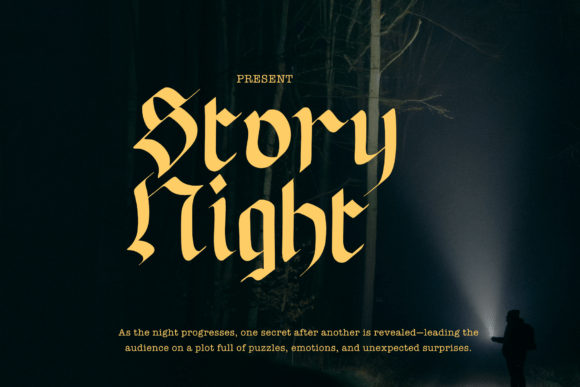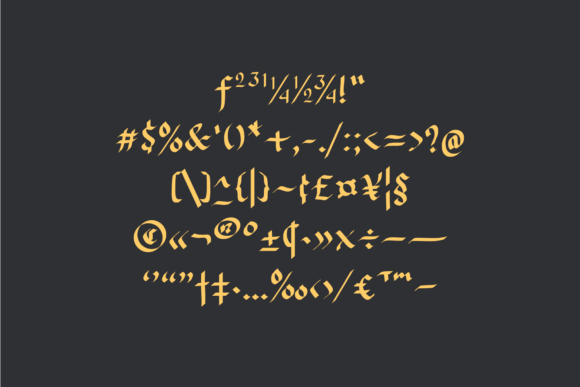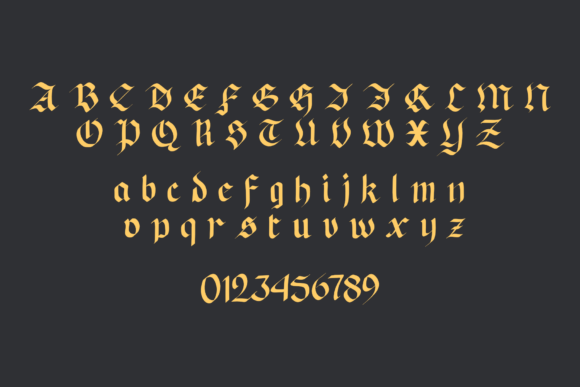
Unveiling the Elegance of Black Sultanah Font: A Timeless Choice for Designers and Crafters
The Black Sultanah font, a category of typefaces also known as Gothic or Old English fonts, has been a cornerstone of design for centuries. Characterized by their dramatic, ornate letterforms with thick, angular strokes and elaborate decorative elements, these fonts evoke a sense of history, authority, and sophistication. Originating in medieval European manuscripts, Black Sultanah fonts have stood the test of time, remaining a popular choice for designers and crafters seeking to add a touch of classical elegance or dramatic impact to their projects.
The Origins and Evolution of Black Sultanah Fonts
Black Sultanah fonts trace their roots back to the medieval period in Europe, where they were used in illuminated manuscripts and Gothic architecture. These early typefaces were designed to convey a sense of grandeur and solemnity, reflecting the artistic and cultural values of the time. Over the centuries, Black Sultanah fonts have evolved, influenced by various design movements and technological advancements. Despite these changes, they have retained their distinctive characteristics, including thick, angular strokes, elaborate flourishes, and a sense of historical significance.
Characteristics of Black Sultanah Fonts
Black Sultanah fonts are distinguished by several key features:
- Thick, Angular Strokes: The bold, angular strokes of Black Sultanah fonts give them a dramatic and commanding presence.
- Elaborate Decorative Elements: Intricate flourishes and ornate details add to the elegance and sophistication of these typefaces.
- Historical Significance: Black Sultanah fonts are often associated with medieval manuscripts, Gothic architecture, and traditional ceremonial designs.
Applications of Black Sultanah Fonts
The versatility of Black Sultanah fonts makes them suitable for a wide range of design applications, including:
- Certificates and Diplomas: The formal, authoritative appearance of Black Sultanah fonts makes them an ideal choice for certificates, diplomas, and other official documents.
- Logos and Branding: The distinctive, memorable quality of Black Sultanah fonts can help to create a strong brand identity, particularly for companies seeking to convey a sense of tradition and heritage.
- Decorative Headings: Black Sultanah fonts can add a touch of drama and elegance to headings and titles, making them a popular choice for designers and crafters working on projects that require a classical or sophisticated look.
Tips for Using Black Sultanah Fonts Effectively
To get the most out of Black Sultanah fonts, consider the following tips:
- Use Sparingly: Due to their bold, dramatic nature, Black Sultanah fonts are best used sparingly to avoid overwhelming the viewer.
- Pair with Simpler Fonts: Combining Black Sultanah fonts with simpler, more straightforward typefaces can create a striking contrast and enhance overall design impact.
- Consider the Context: Ensure that the use of a Black Sultanah font aligns with the tone and purpose of your project, as these typefaces can evoke strong associations with tradition, authority, and formality.
The Black Sultanah font, with its rich history, distinctive characteristics, and versatile applications, remains a timeless choice for designers and crafters. Whether you’re looking to add a touch of classical elegance, convey a sense of authority, or simply create a dramatic impact, Black Sultanah fonts offer a wealth of creative possibilities. By understanding the origins, characteristics, and applications of these typefaces, designers and crafters can unlock their full potential and create stunning, effective designs that stand the test of time.